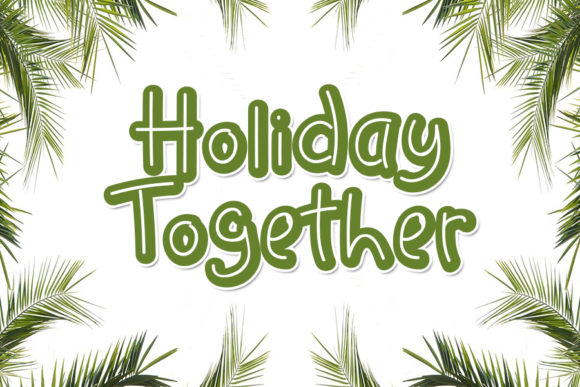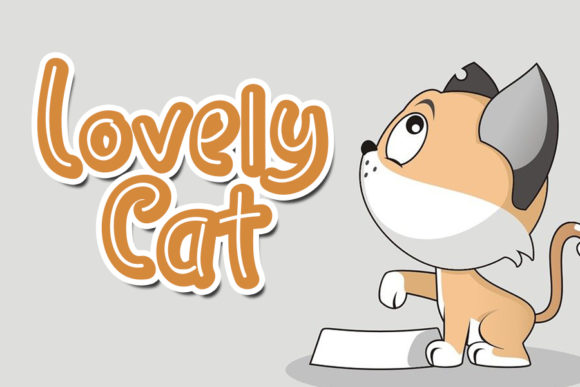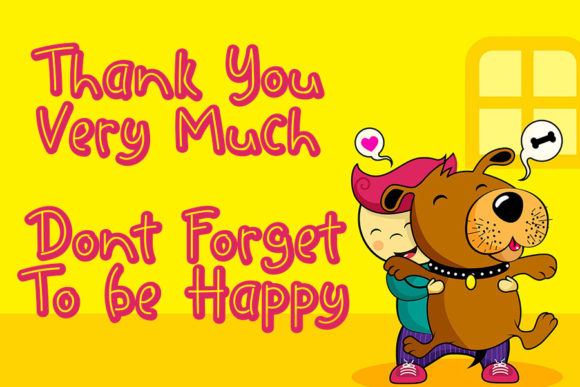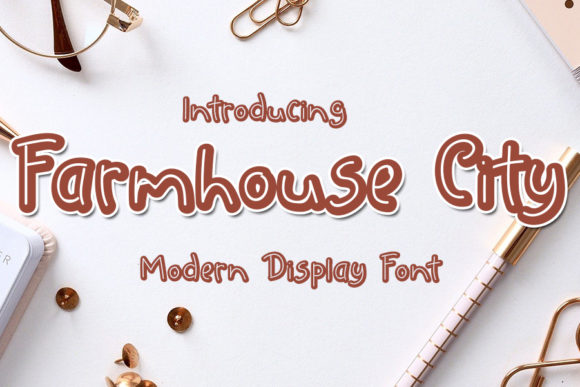
Introducing Farmhouse City Font: The Perfect Addition to Your Design Arsenal
In the world of typography, fonts play a crucial role in conveying the tone and personality of a design. For designers and crafters looking for a modern and trendy display font, Farmhouse City Font is an excellent choice. This versatile font is perfect for creating eye-catching designs, especially when paired with bright colors and a children’s theme.
What is Farmhouse City Font?
Farmhouse City Font is a contemporary display font designed to make a statement. Its clean lines, subtle curves, and rustic charm make it an ideal choice for a wide range of design projects. Whether you’re creating posters, flyers, or social media graphics, this font is sure to grab attention and leave a lasting impression.
Key Features of Farmhouse City Font
- Modern and Trendy: Farmhouse City Font boasts a fresh and modern aesthetic that’s perfect for designs that require a touch of sophistication.
- Display Font: This font is specifically designed for display purposes, making it ideal for headlines, titles, and other attention-grabbing elements.
- Children’s Theme: Farmhouse City Font is particularly well-suited for children’s themed designs, such as kids’ party invitations, educational materials, and nursery decor.
- Bright Color Combinations: When paired with bright colors, Farmhouse City Font becomes even more striking, adding a pop of personality to your designs.
Design Applications for Farmhouse City Font
Farmhouse City Font is an incredibly versatile font that can be used in a variety of design applications, including:
- Posters and Flyers: Create eye-catching posters and flyers for events, promotions, or announcements.
- Social Media Graphics: Use Farmhouse City Font to create engaging social media graphics that stand out from the crowd.
- Kids’ Party Invitations: Design adorable kids’ party invitations that set the tone for a fun and festive celebration.
- Educational Materials: Use Farmhouse City Font to create engaging and interactive educational materials, such as worksheets, activity sheets, and more.
- Nursery Decor: Add a touch of personality to nursery decor with Farmhouse City Font, perfect for wall art, decals, and other decorative elements.
Tips for Using Farmhouse City Font
To get the most out of Farmhouse City Font, consider the following tips:
- Experiment with Color: Pair Farmhouse City Font with bright, bold colors to create a visually striking design.
- Mix and Match: Combine Farmhouse City Font with other fonts to create a unique and interesting typography combination.
- Play with Texture: Add texture to your design by incorporating Farmhouse City Font with different textures, such as wood, fabric, or paper.
Farmhouse City Font is a modern and trendy display font that’s perfect for designers and crafters looking to add a touch of personality to their designs. With its clean lines, subtle curves, and rustic charm, this font is sure to become a staple in your design arsenal. Whether you’re creating children’s themed designs, posters, or social media graphics, Farmhouse City Font is an excellent choice. So why wait? Download Farmhouse City Font today and start creating stunning designs that capture attention and leave a lasting impression!